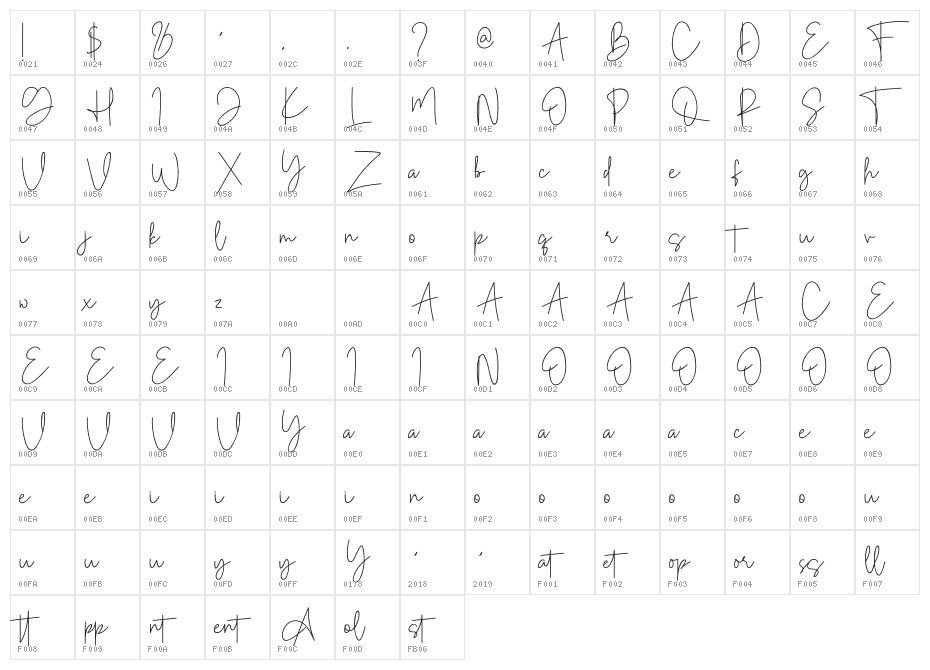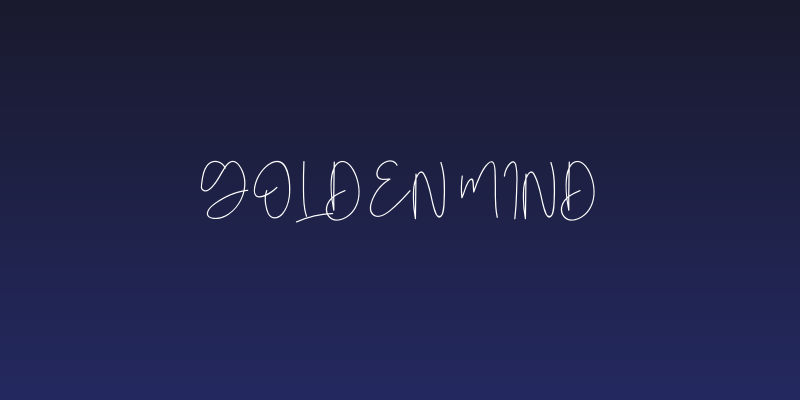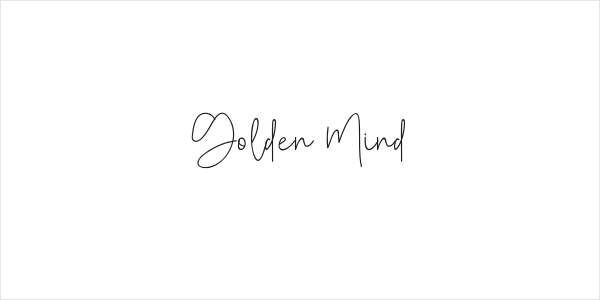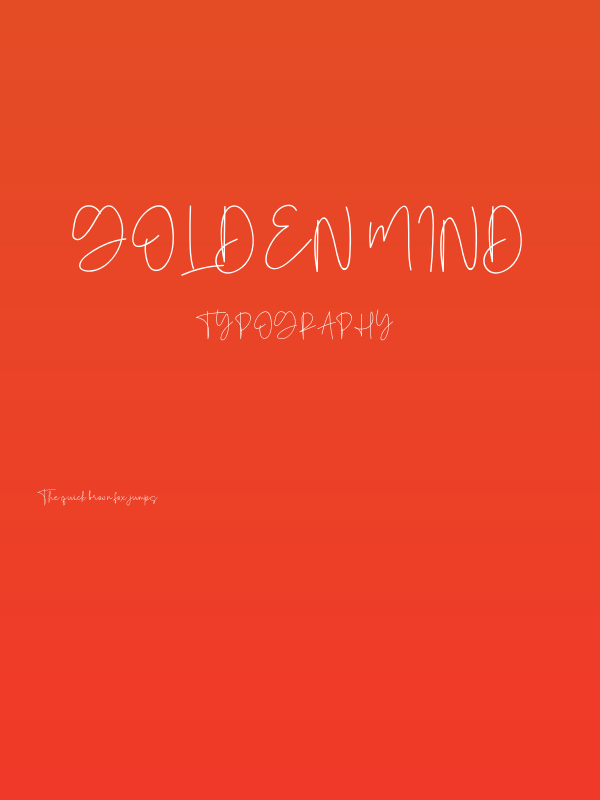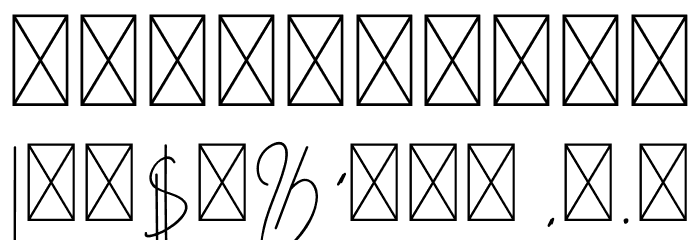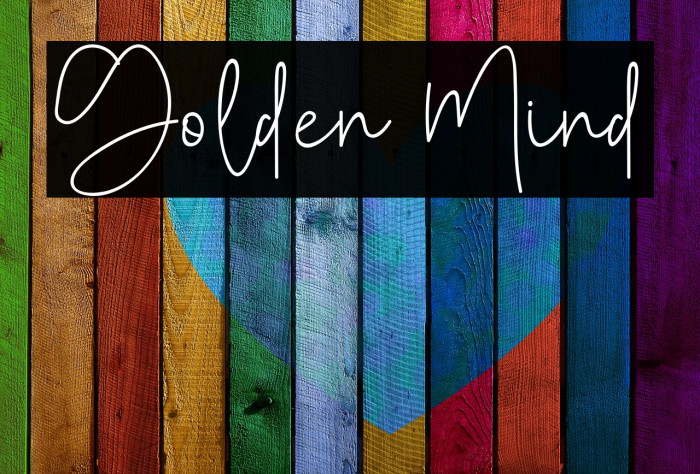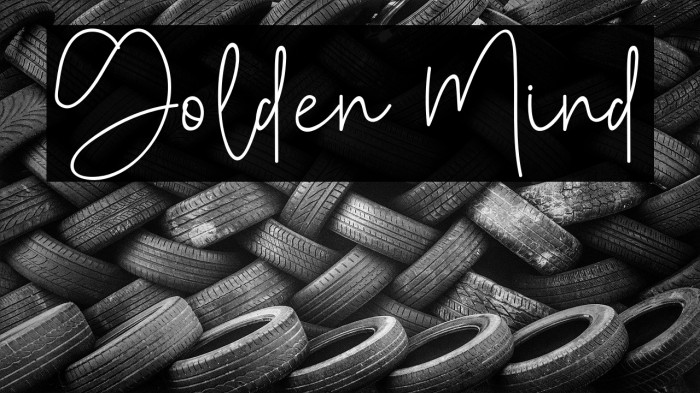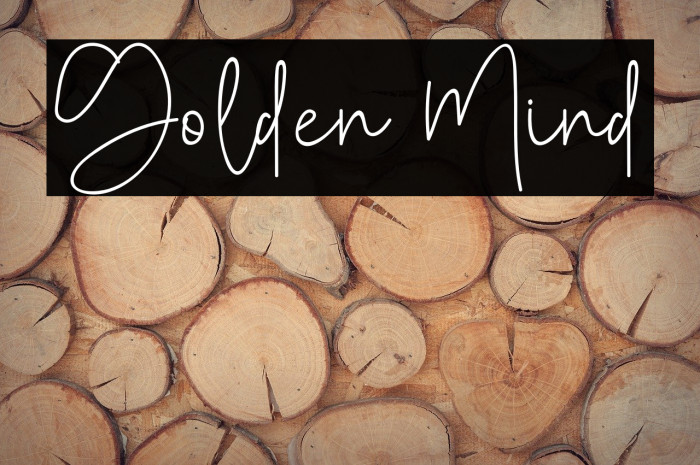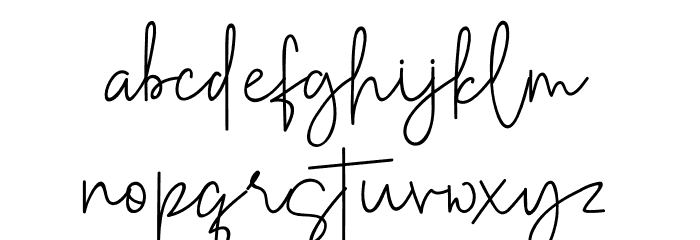
Golden Mind Font
Golden Mind Description
This font features a unique handwritten style with a playful and artistic flair. The uppercase letters are characterized by tall, slender lines with a slight slant, giving them a dynamic and energetic appearance. The lowercase letters maintain a consistent flow, with smooth curves and loops that enhance the handwritten aesthetic. The font's overall look is casual yet elegant, making it suitable for creative projects. The special characters are integrated seamlessly, maintaining the font's cohesive style.
| Use Case | Logos, Invitations, Personal Branding |
| Proposed Projects | Ideal for wedding invitations, greeting cards, personal branding, and creative projects that require a personal touch. |